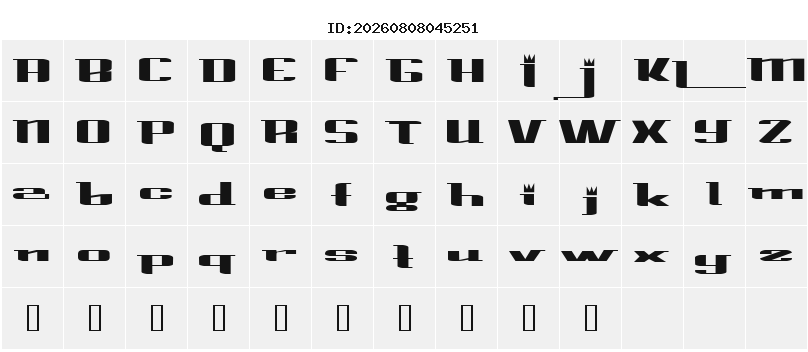
About PrinceAlbertExtended.ttf
PrinceAlbertExtended.ttf is a modern, elegant sans-serif font designed for ultimate readability and visual harmony. Perfect for branding, headlines, web design, and print materials.